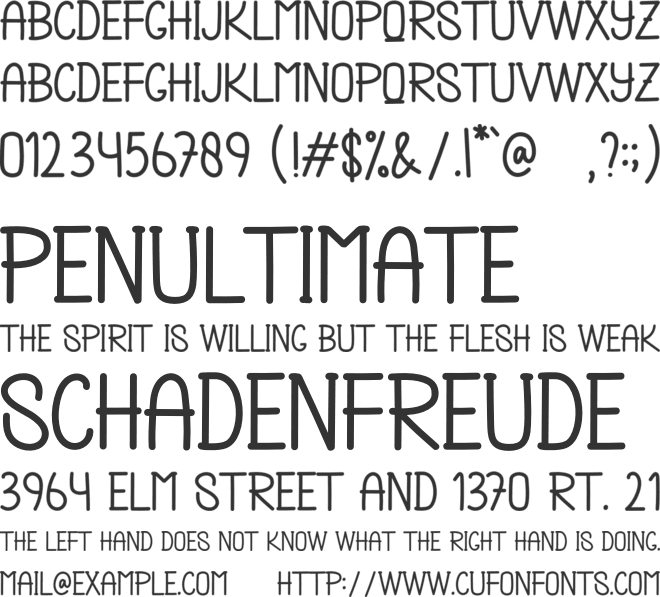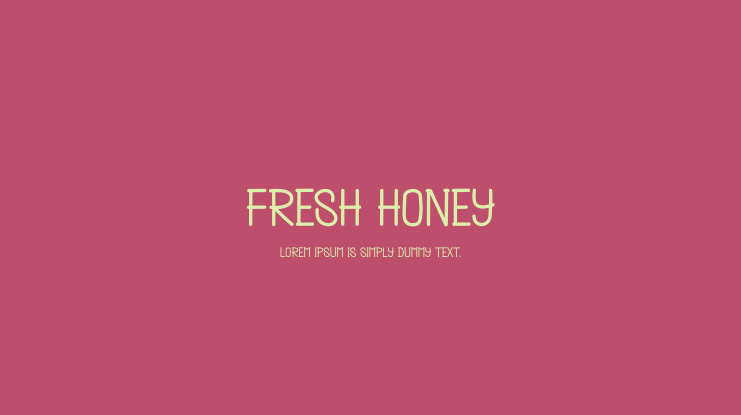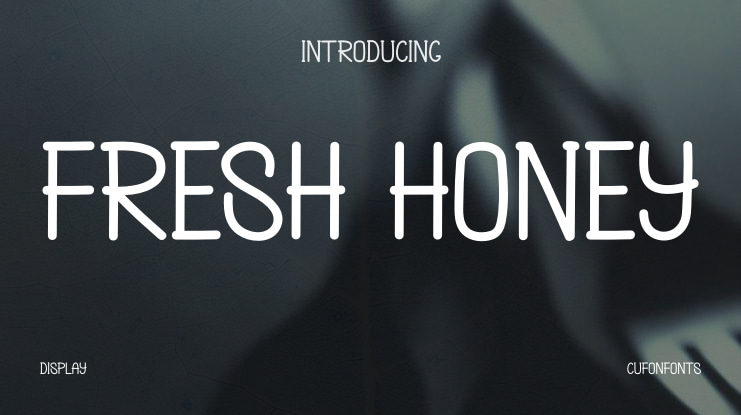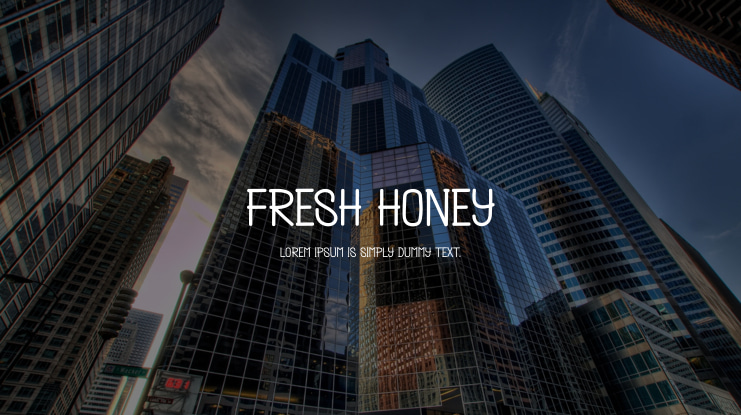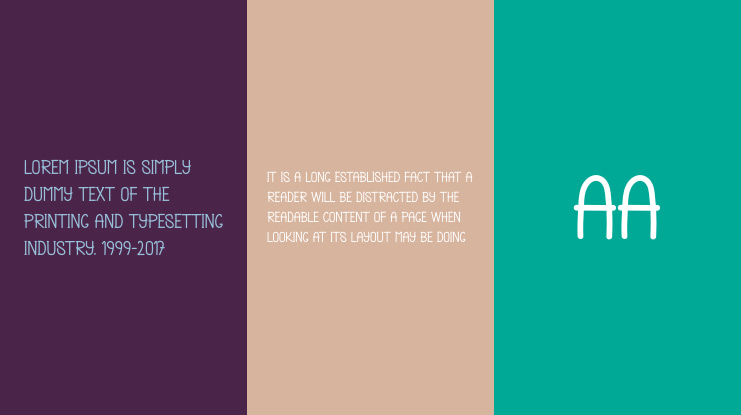
Fresh Honey Font
Our latest stylish fonts are perfect for showcasing on walls, wedding invitations, social media posts, logos, advertisements, packaging, product design, labels, photography, watermarks, invitations, stationery, and any project that requires elegant handwriting.